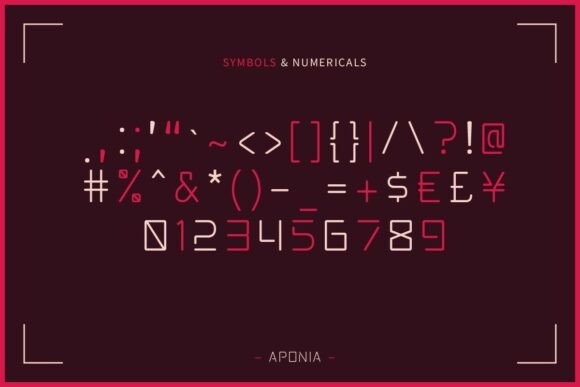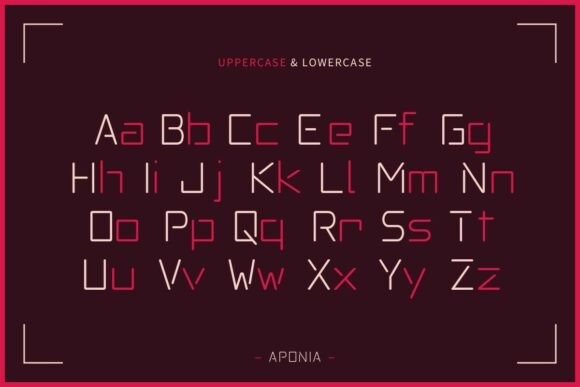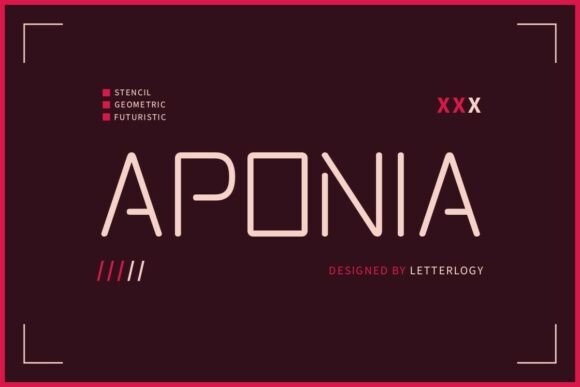
Aponia Font
Aponia Font – A futuristic geometric sans serif font inspired by the famous button icons of next-gen gaming consoles, aiming to bridge the gap between reality and fantasy and bring personality and uniqueness to your various design projects.